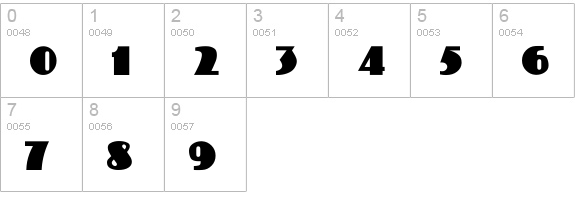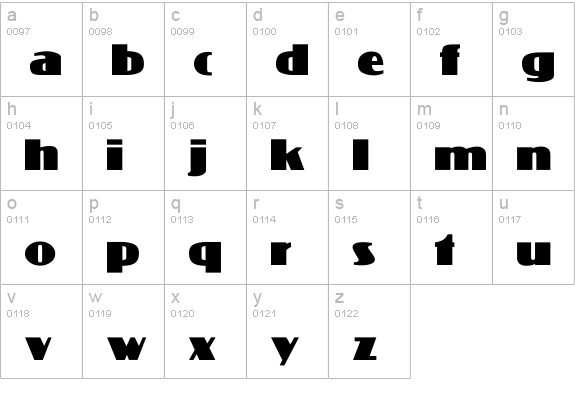
Coliseo-Normal Font Details
Coliseo-Normal is the standard, neutral variant in the Coliseo typeface family \xE2\x80\x94 well suited to general body text, paragraphs, and standard typographic work.
Coliseo-Normal font is a classic and elegant typeface that exudes sophistication and style. Its clean lines and balanced proportions make it versatile for a wide range of design projects, from branding to editorial layouts. The timeless appeal of Coliseo-Normal font adds a touch of refinement to any text it graces. What's even better is that Coliseo-Normal font is available for free download at FontsMarket.com. This means you can effortlessly enhance your designs with this beautiful font without any cost. Embrace the timeless beauty of Coliseo-Normal font today and elevate your design projects to new heights.